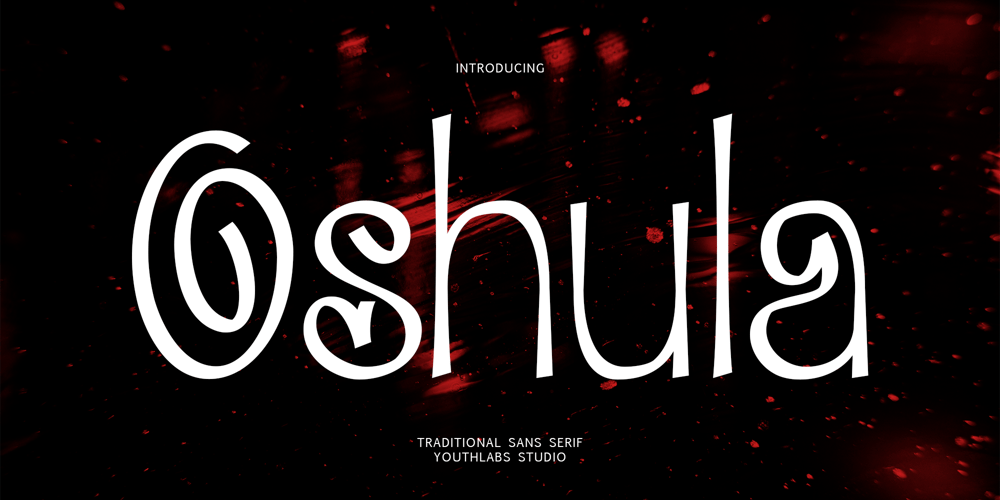
Oshula
Oshula font
Oshula Font Family was designed by Fathi Al Ghazi and published by Youthlabs. Oshula contains 1 styles and family package options. Introducing Oshula Traditional Sans Serif Font. Oshula was inspired by a typeface that developed in the Middle Ages. With a gothic nuance but still firm. Oshula is made to remain usable in modern design styles. By having its own characteristics, Oshula can make your design look outstanding.